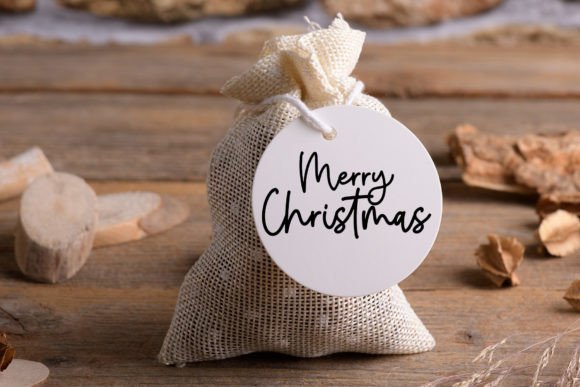
Merry Christmas Font
Merry Christmas is a delicate handwritten font masterfully crafted to become a true favorite. Contemporary and fresh, it is perfect for any design you wish to create. Add it to your creative projects and make them outstanding!